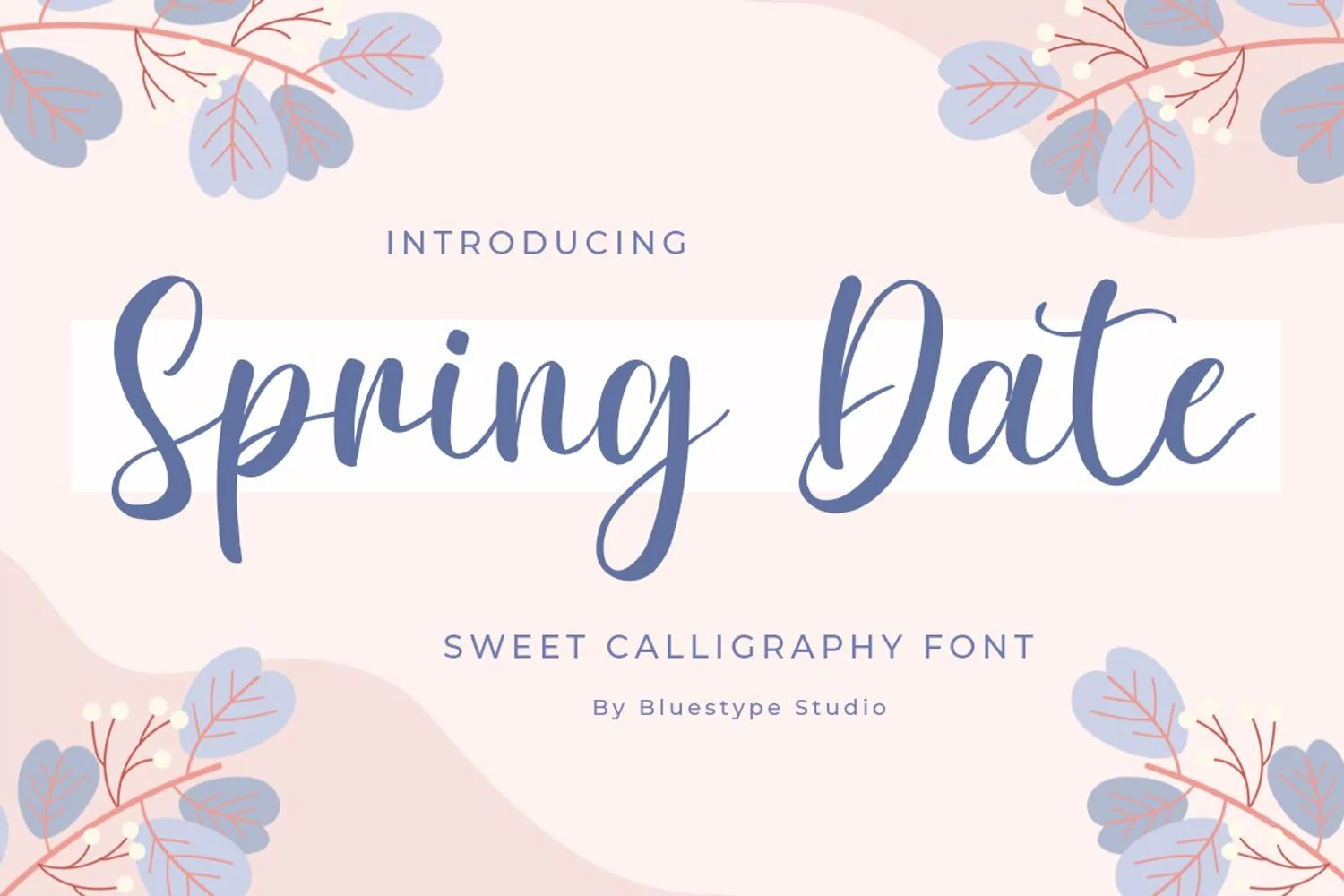
Spring Date - Sweet Calligraphy
Spring Date
Spring Date is a delicate, flowing and unique script font. is PUA encoded which means you can access all of the glyphs and swashes with ease!
This font is suitable for branding, card business, logo, photography, quotes, fashion, watermarks, invitations.
- Multilingual Support.